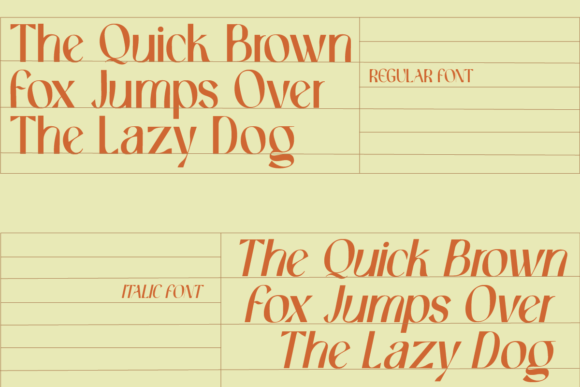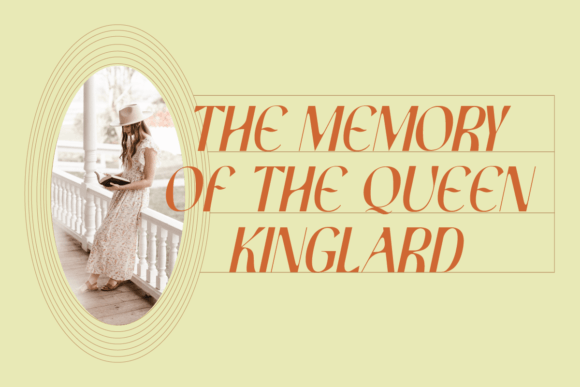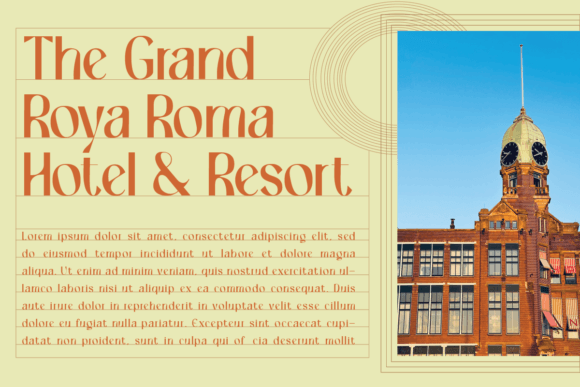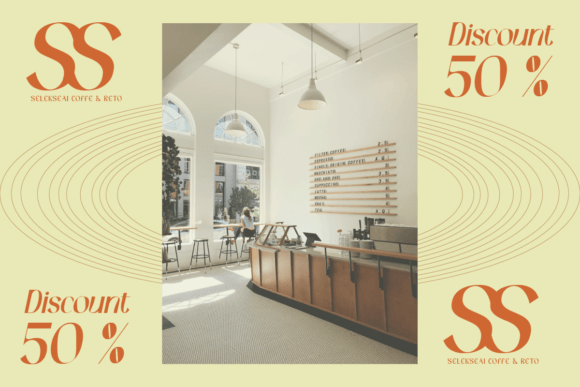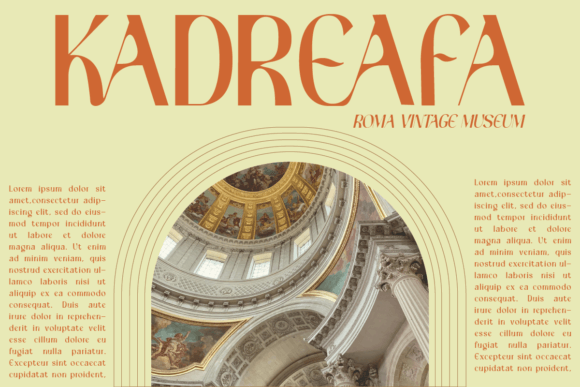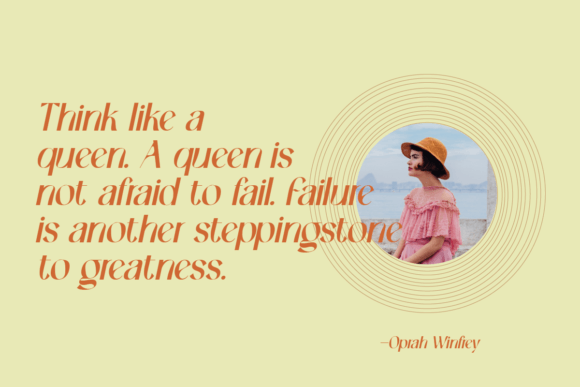
Introduction to Kinglard Font Font
Fonts play a crucial role in design, and the Kinglard Font font is a typeface that brings both character and versatility to any project. Whether you’re working on a branding project, a website, or a print design, the Kinglard Font font offers a unique style that can elevate your work.
Kinglard is a modern display font.
Itβs a very versatile font that works great in large and small sizes Perfect for editorial projects, Logo design, Clothing Branding, product packaging, magazine headers, or simply as a stylish text overlay to any background image.
Key Features of Kinglard Font Font
Why Choose Kinglard Font Font?
The Kinglard Font font is more than just a typeface β it’s a design tool that helps you communicate your message with style and clarity. Its unique character set and versatile design make it suitable for a wide range of applications, from elegant invitations to bold headlines.
With its carefully crafted letterforms and balanced proportions, the Kinglard Font font ensures readability and visual appeal across all mediums.
What makes Kinglard Font font special?
The Kinglard Font font stands out with its unique design, exceptional readability, and versatility across various design applications.